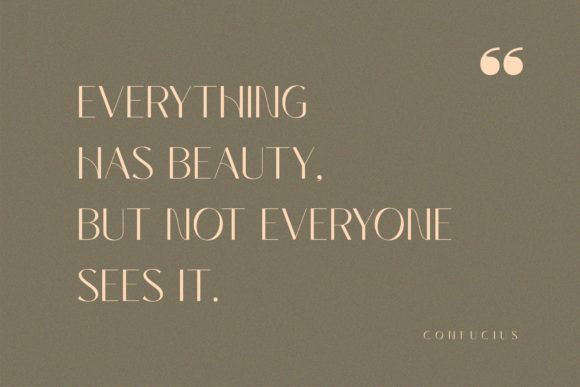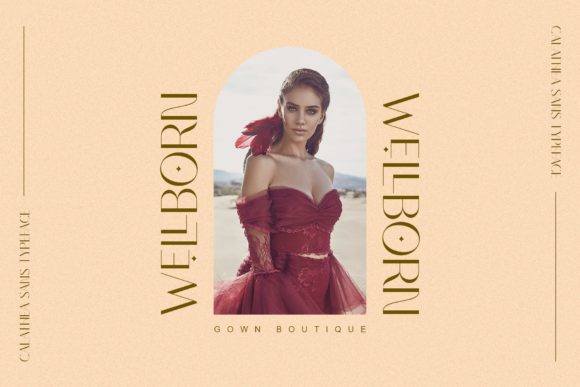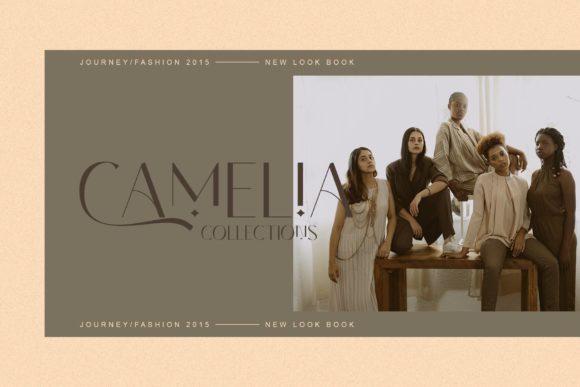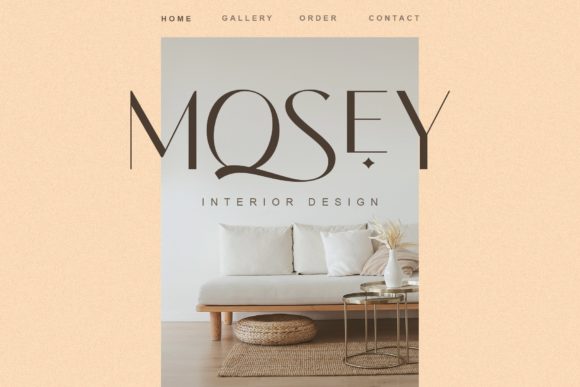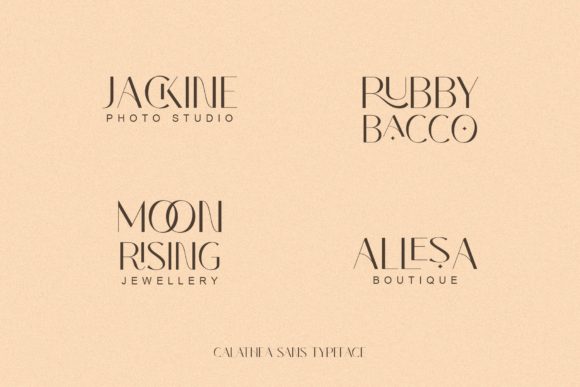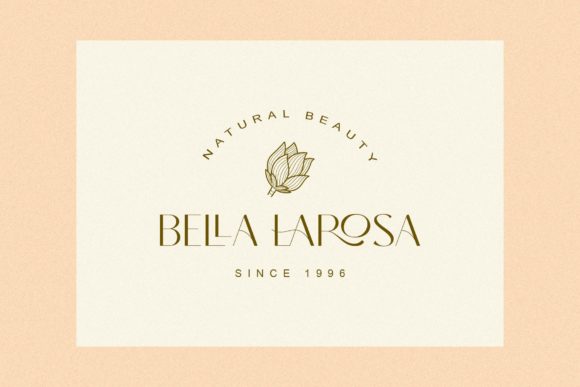
Introducing Calathea Font: Elevate Your Design with Luxury and Elegance
Are you a designer or crafter looking for a font that exudes class and sophistication? Look no further than Calathea Font, a stunning sans serif font that is sure to add a touch of luxury to any design project. With its clean lines, elegant curves, and refined aesthetic, Calathea Font is the perfect choice for those who want to create high-end designs that stand out from the crowd.
What is Calathea Font?
Calathea Font is a modern sans serif font that is inspired by the latest design trends. Its sleek and minimalist aesthetic makes it perfect for a wide range of design projects, from branding and advertising to packaging and digital media. The font features a unique blend of geometric shapes and organic curves, giving it a distinctive look that is both elegant and sophisticated.
Key Features of Calathea Font
So, what makes Calathea Font so special? Here are just a few of its key features:
• Clean and minimalist design: Calathea Font features a clean and minimalist design that is perfect for creating modern and sophisticated designs.
• Elegant curves: The font’s elegant curves add a touch of luxury and refinement to any design project.
• Versatile: Calathea Font is incredibly versatile, making it perfect for a wide range of design projects, from headings and titles to body text and more.
• Easy to read: Despite its elegant design, Calathea Font is incredibly easy to read, making it perfect for both digital and print designs.
How to Use Calathea Font in Your Design Projects
Calathea Font is incredibly easy to use, and can be incorporated into a wide range of design projects. Here are just a few ideas to get you started:
• Branding and advertising: Use Calathea Font to create stunning logos, advertisements, and marketing materials that exude luxury and sophistication.
• Packaging design: Add a touch of elegance to your packaging designs with Calathea Font, perfect for luxury brands and high-end products.
• Digital media: Use Calathea Font to create stunning digital media, including social media graphics, website headers, and more.
• Crafting and DIY projects: Calathea Font is also perfect for crafters and DIY enthusiasts, adding a touch of luxury and sophistication to handmade cards, gift tags, and more.
Tips for Getting the Most Out of Calathea Font
To get the most out of Calathea Font, here are a few tips to keep in mind:
• Use it sparingly: While Calathea Font is incredibly elegant, it can be overwhelming if used too much. Use it sparingly to add a touch of luxury to your designs.
• Experiment with different sizes and colors: Calathea Font looks stunning in a variety of sizes and colors. Experiment with different combinations to find the one that works best for your design.
• Pair it with other fonts: Calathea Font pairs perfectly with other fonts, including serif and script fonts. Experiment with different pairings to create unique and interesting designs.
In conclusion, Calathea Font is a stunning sans serif font that is sure to add a touch of luxury and elegance to any design project. With its clean lines, elegant curves, and refined aesthetic, it’s the perfect choice for designers and crafters who want to create high-end designs that stand out from the crowd. So why wait? Download Calathea Font today and start creating stunning designs that exude class and sophistication!